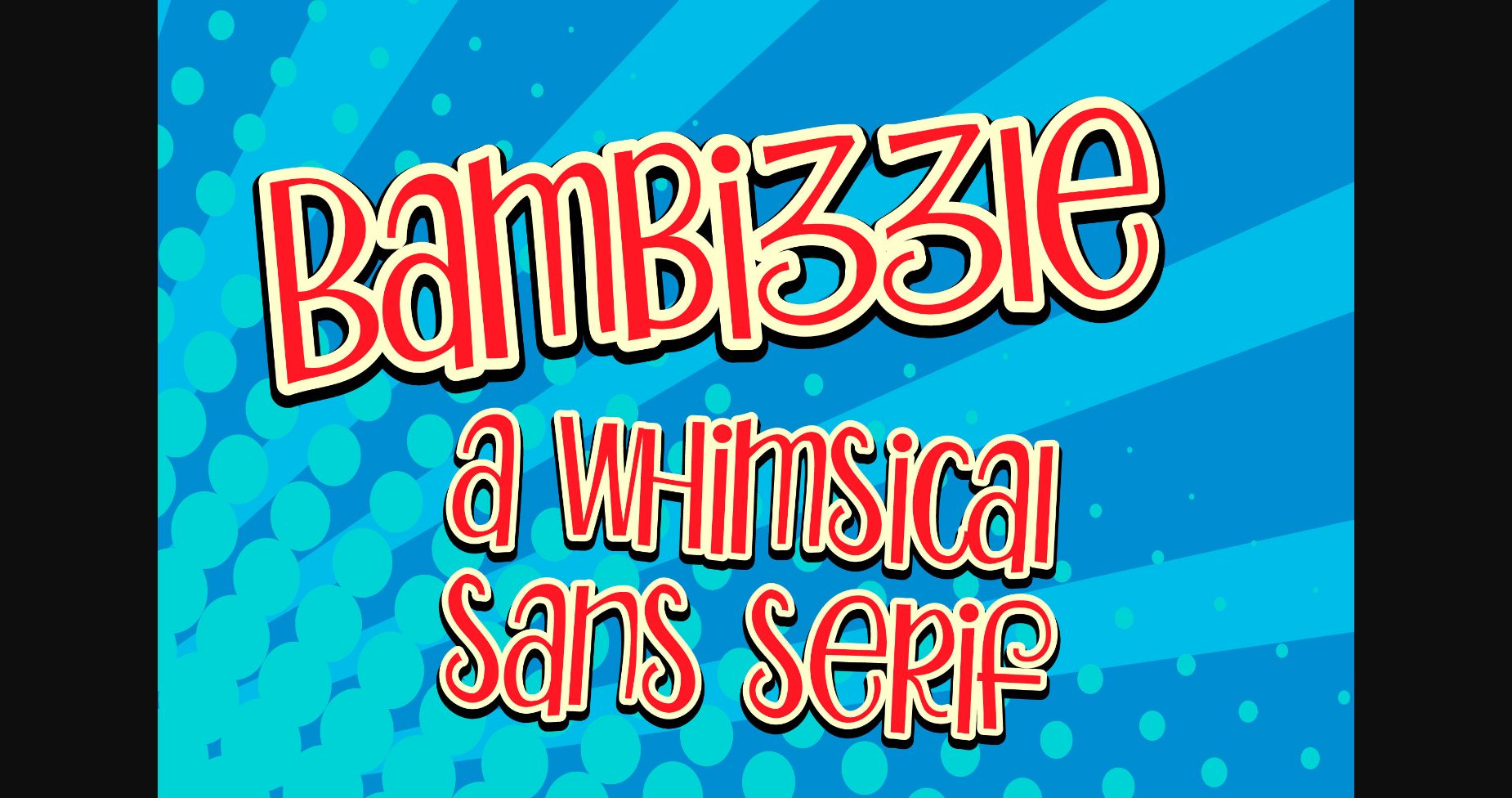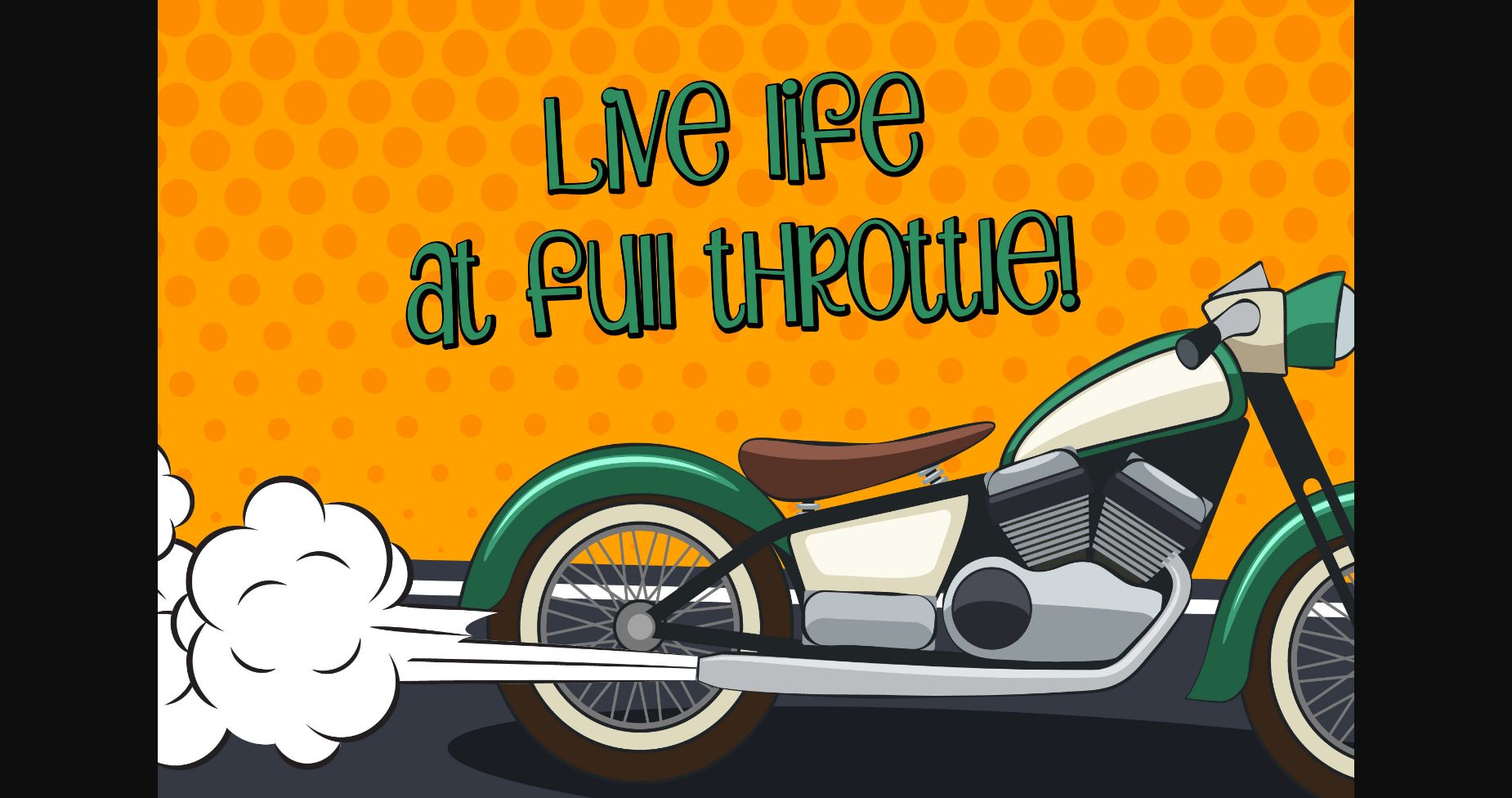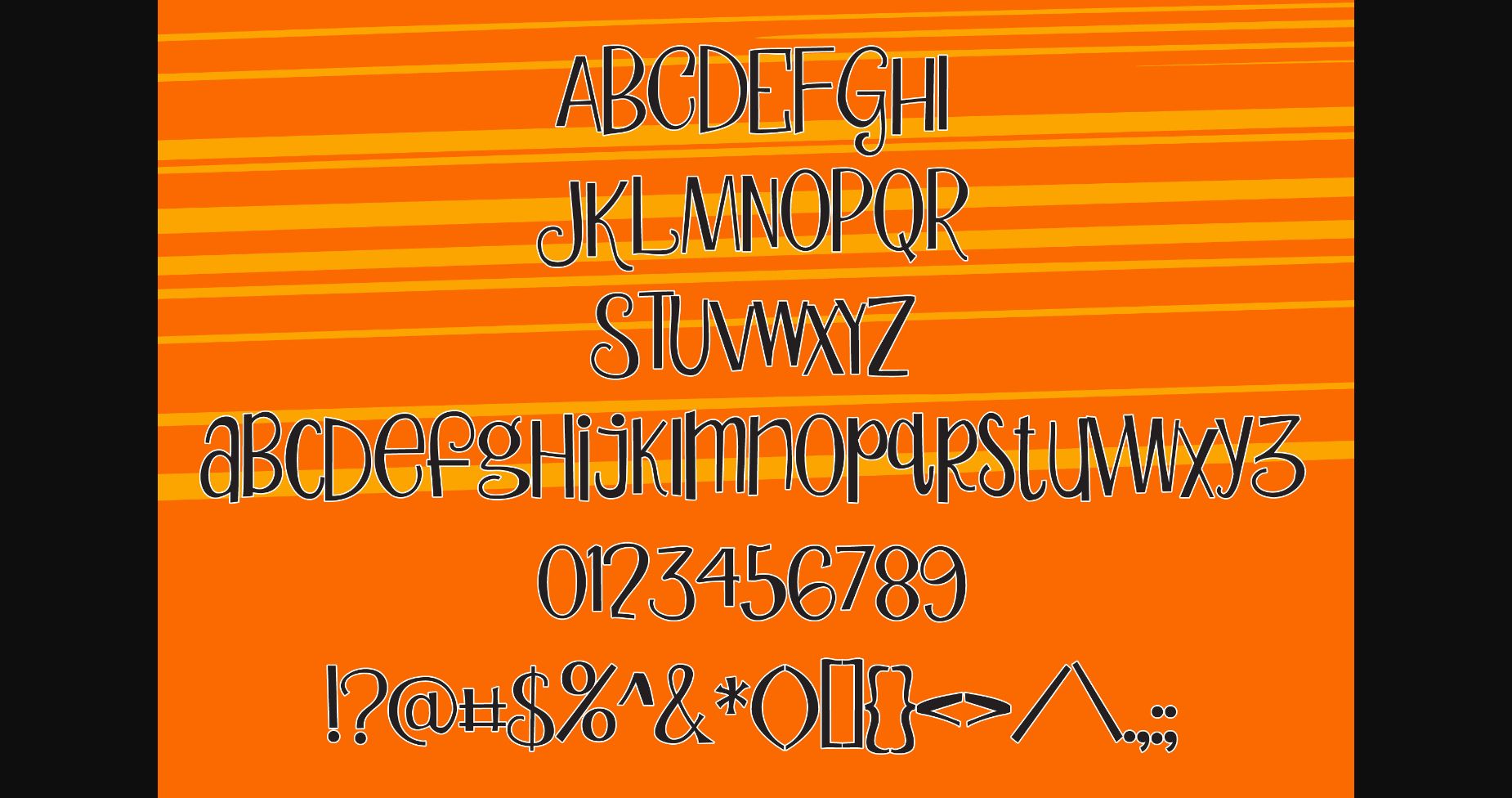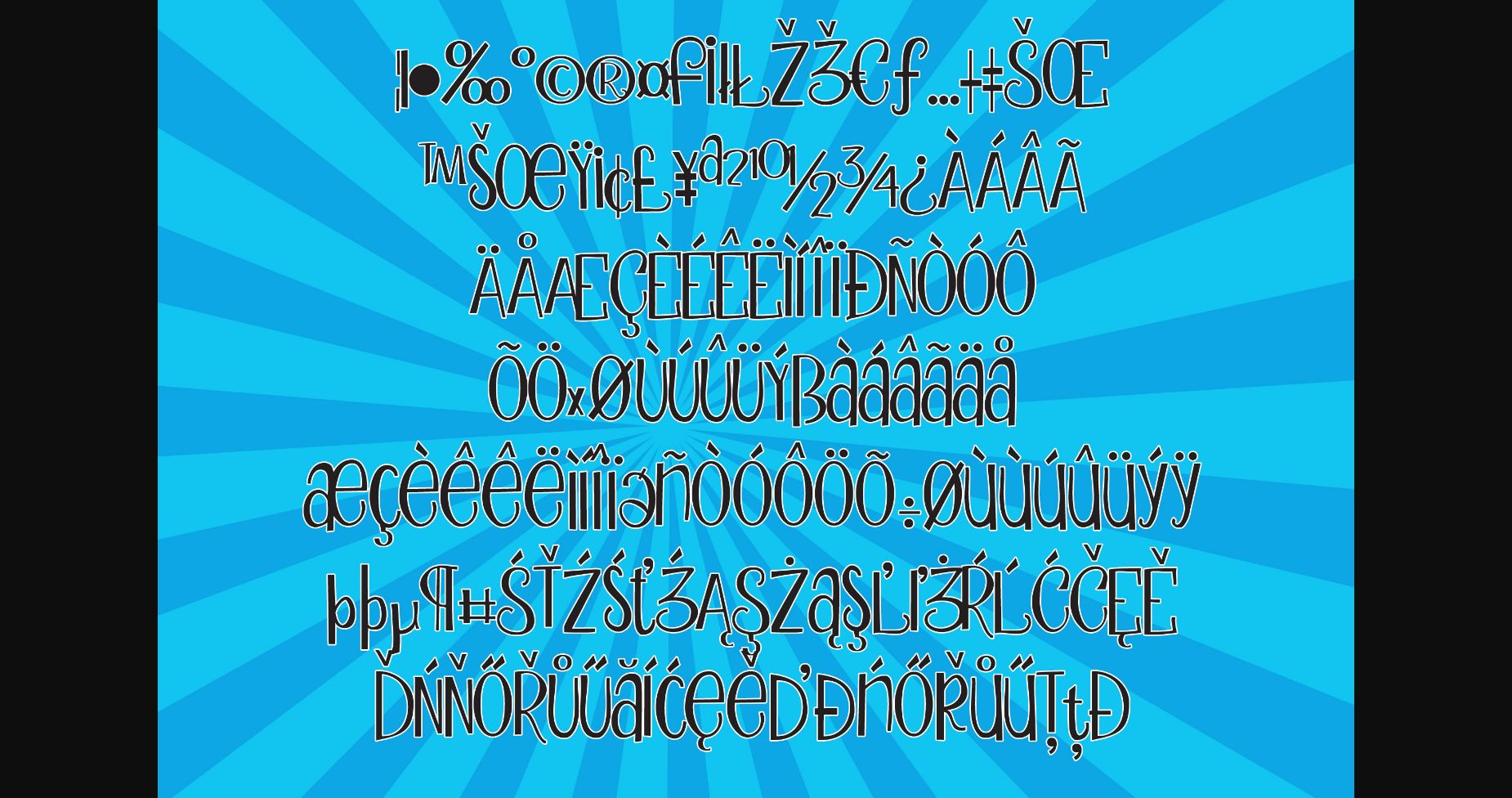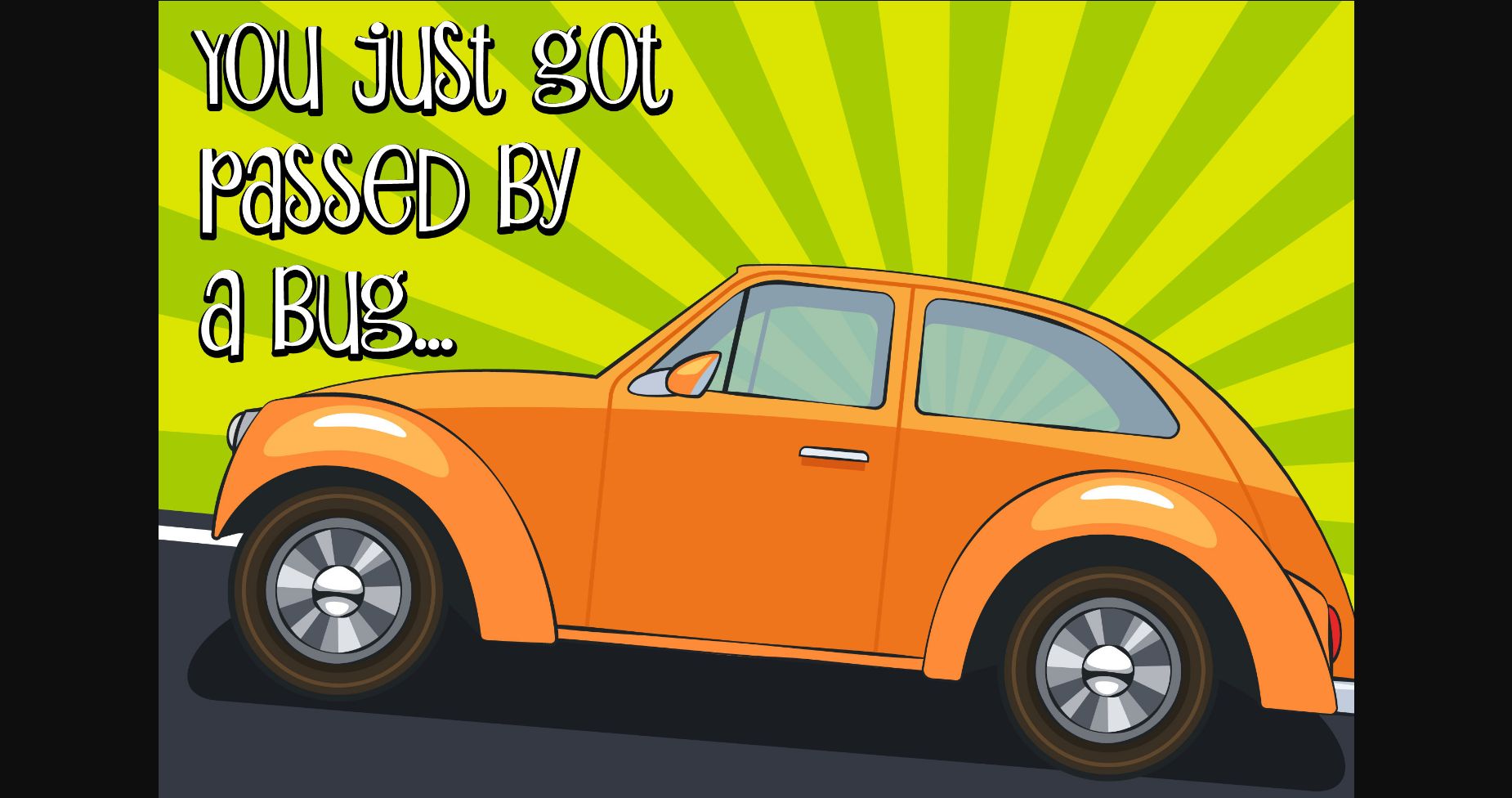
Bambizzle Font
About Bambizzle Font
Bambizzle is a whimsical and comic sans serif font. Its fun style makes it perfect for any design you can think of. Add it with confidence to your creative projects, and notice how they capture everyone’s attention!